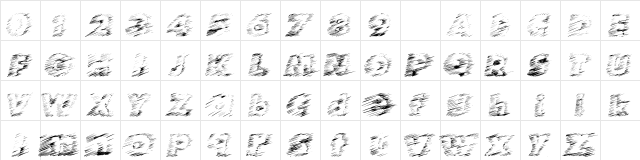
101! Etched Regular
Design Context for 101! Etched Typeface
101! Etched is a composed and adaptable typeface that performs quietly and consistently across a wide range of design contexts.